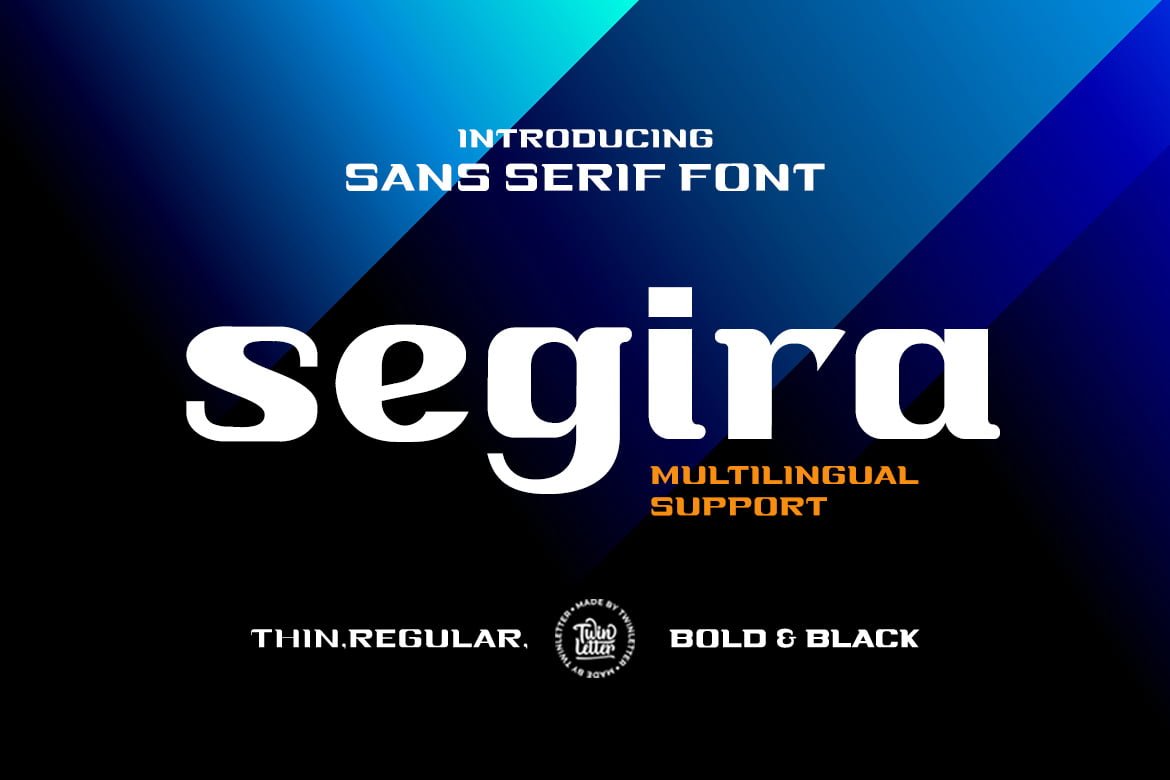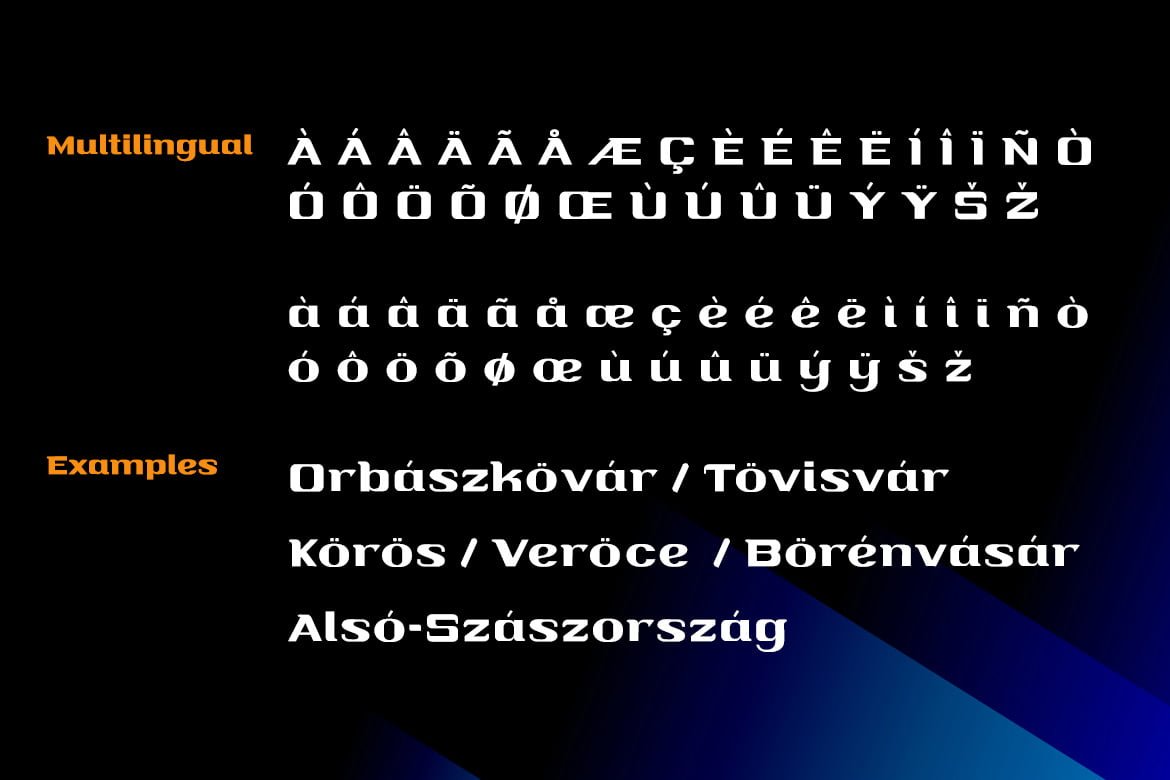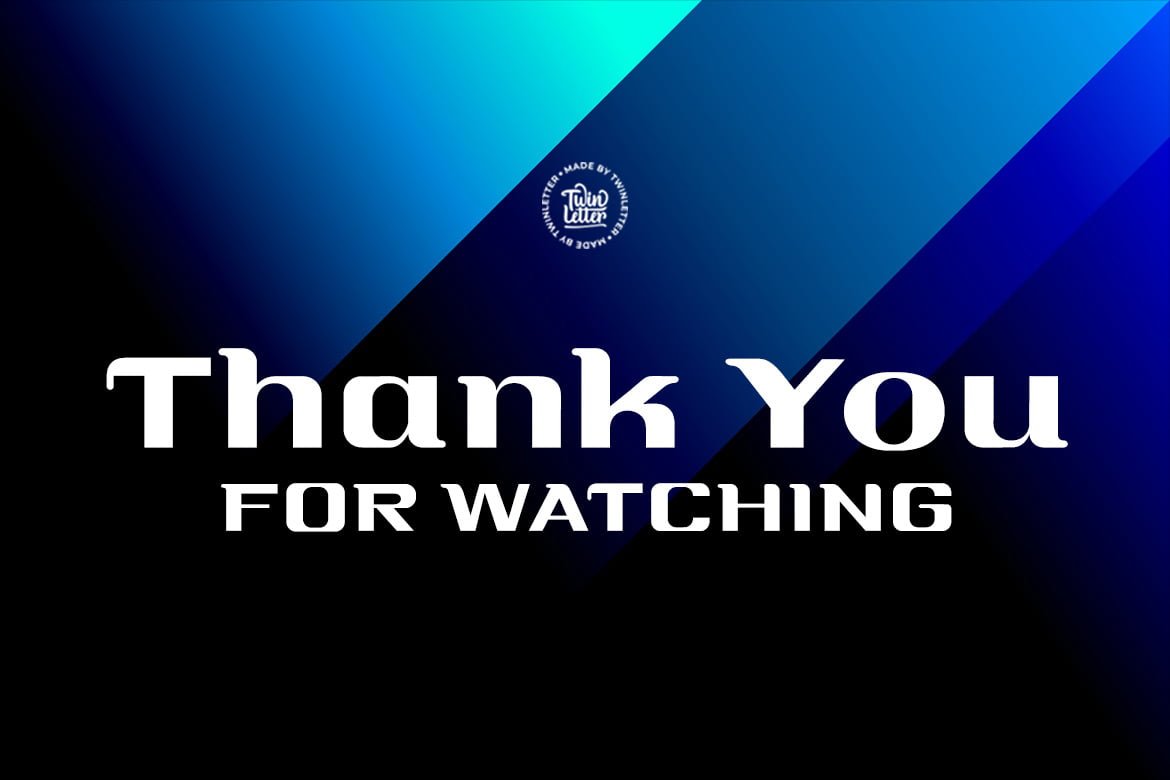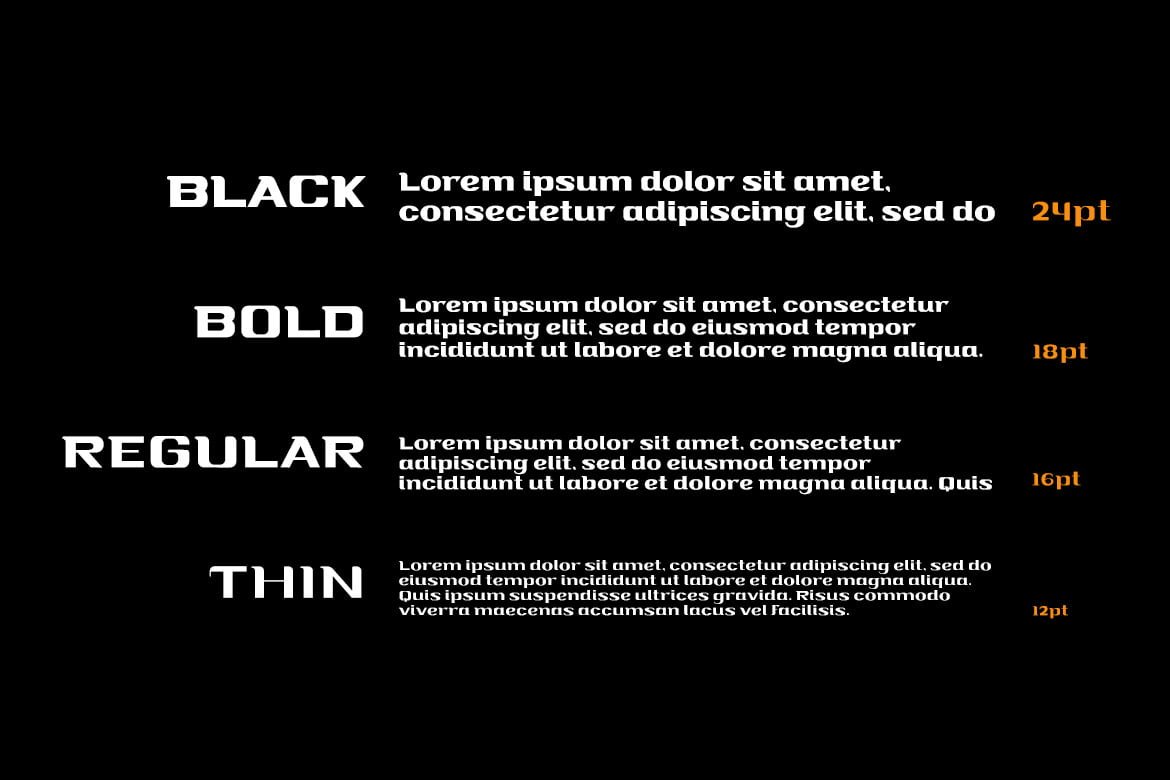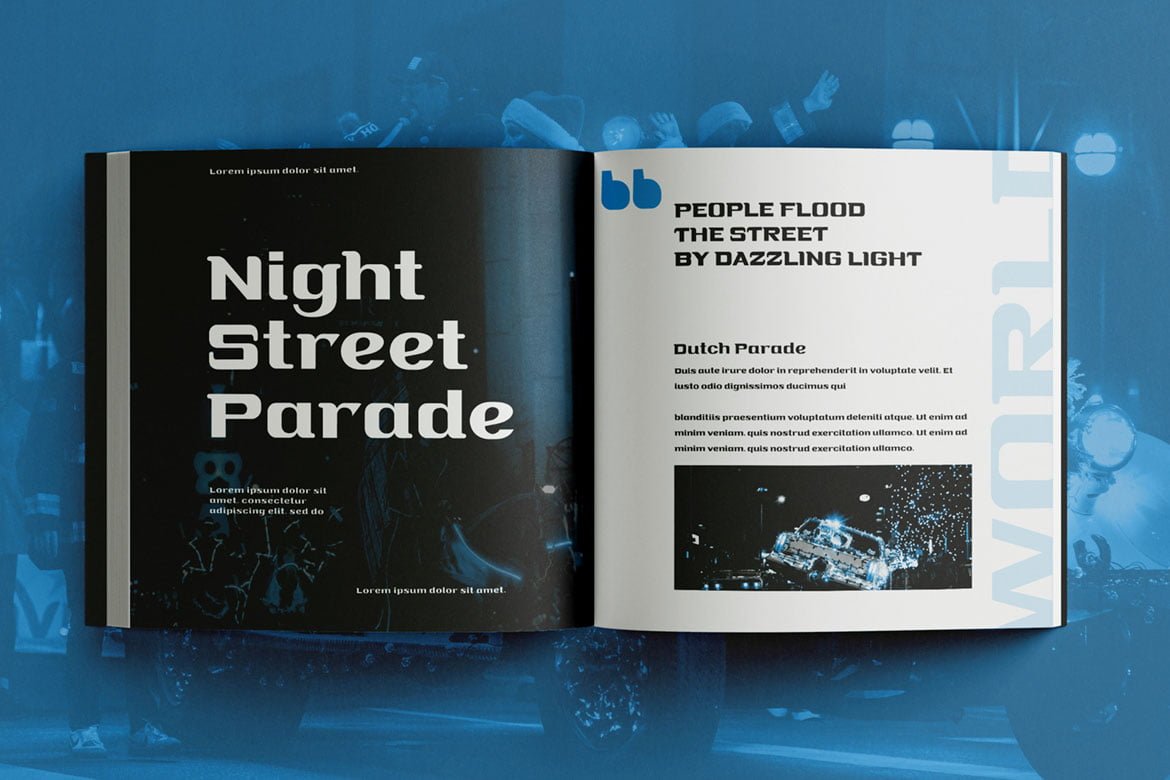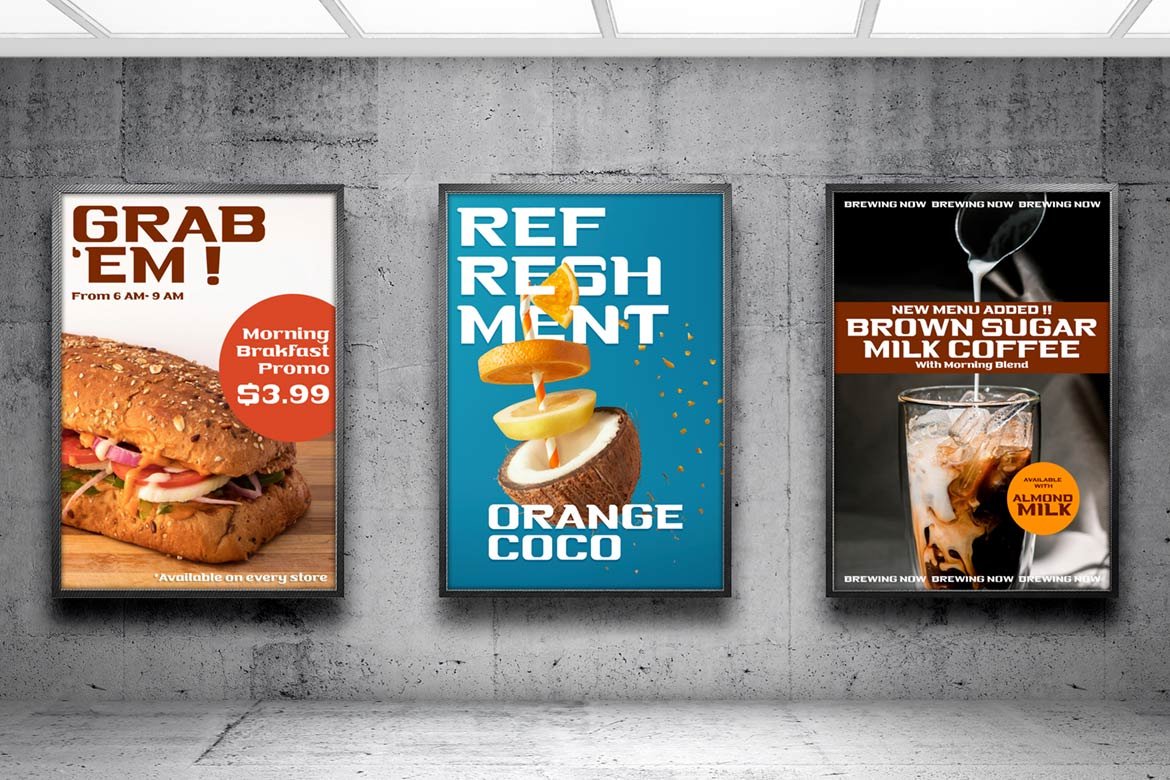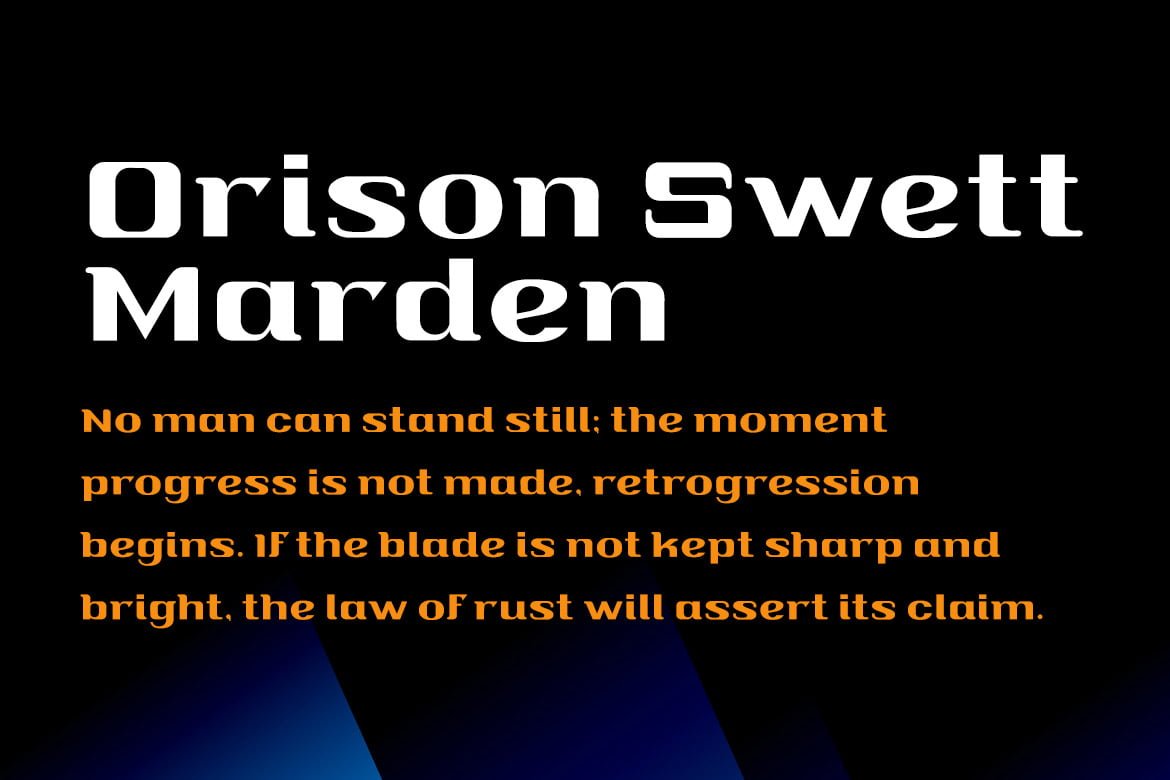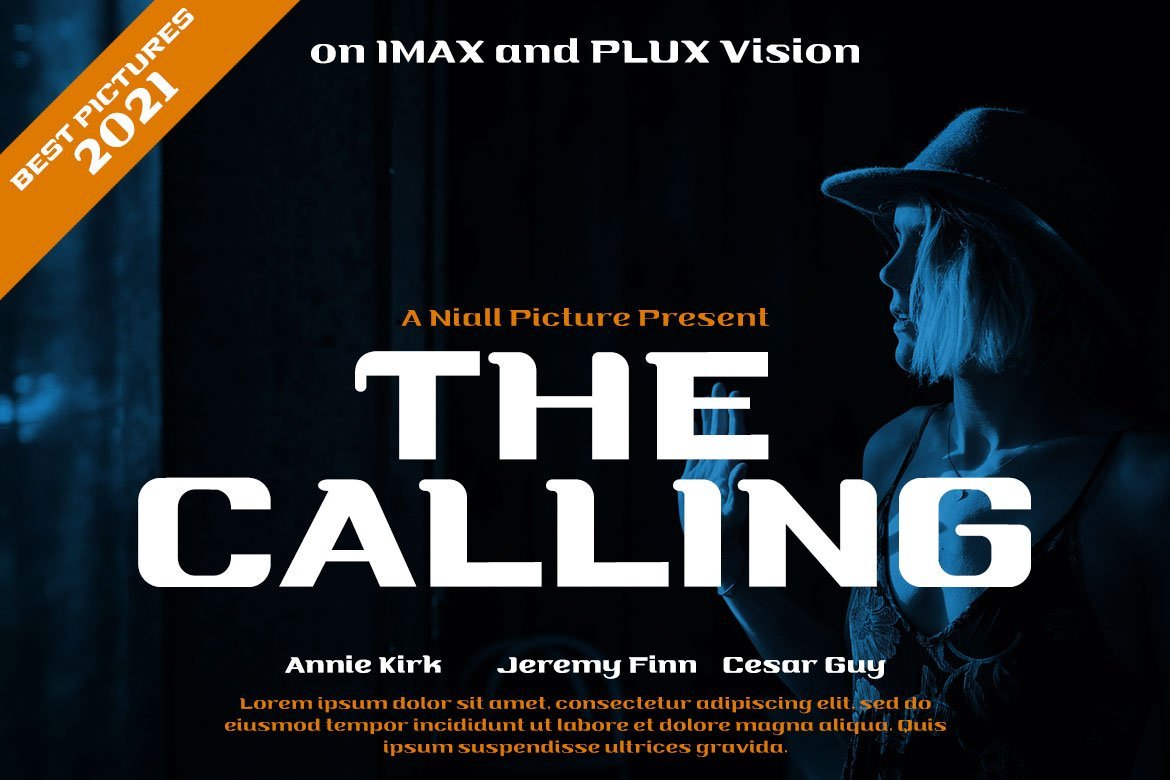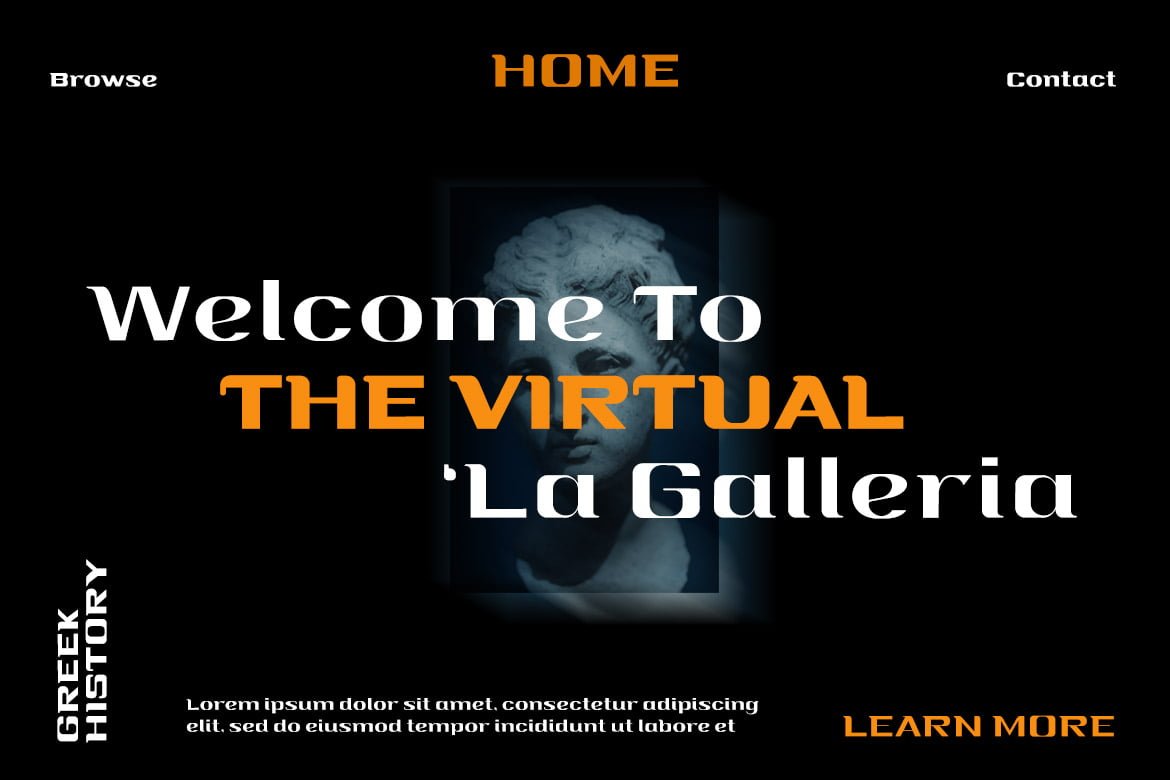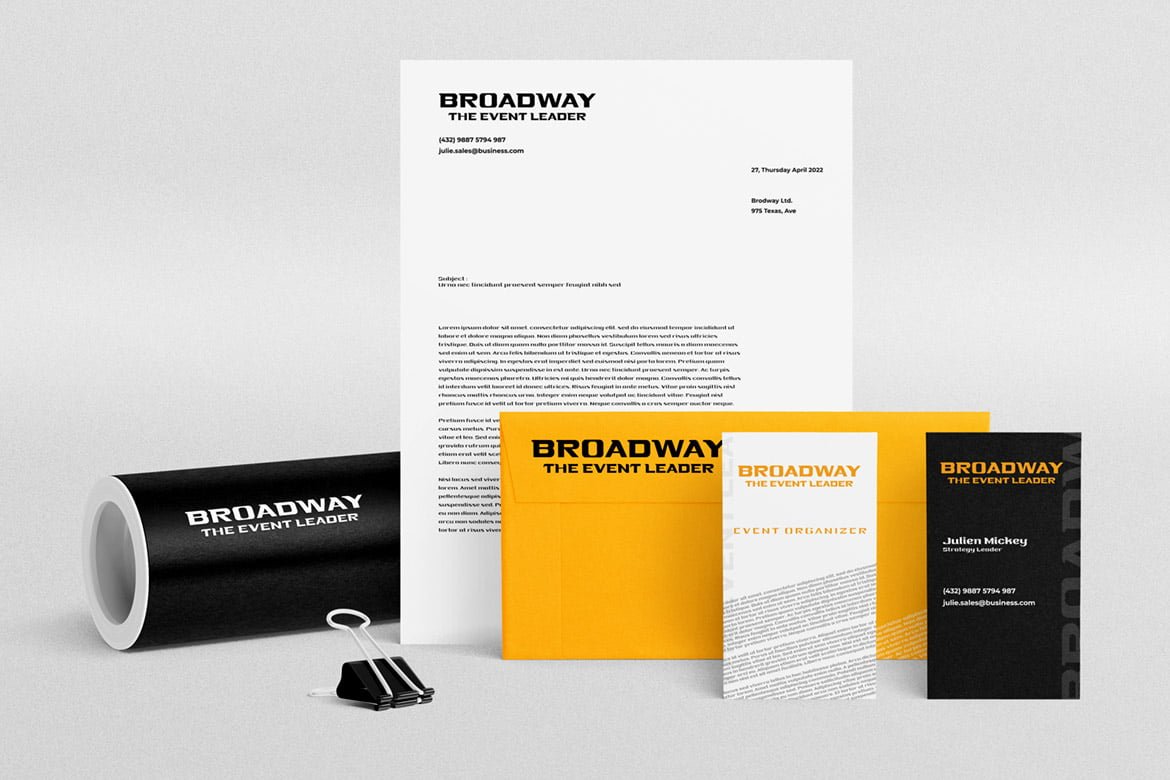
Segira
Segira is a sanserif font that gives off a charming and sophisticated vibe when used in a specific project.
Because each letter has a distinct shape, this font is highly suggested for you to use in your major project; everyone will be impressed and focused on the graphic appearance of your project, and you will receive a lot of positive feedback.
• Fonts include multilingual support for; Afrikaans, Albanian, Croatian, Czech, Danish, Dutch, English, Estonian, Finnish, French, German, Hungarian, Italian, Norwegian, Polish, Portuguese, Slovak, Slovenian, Spanish, Swedish